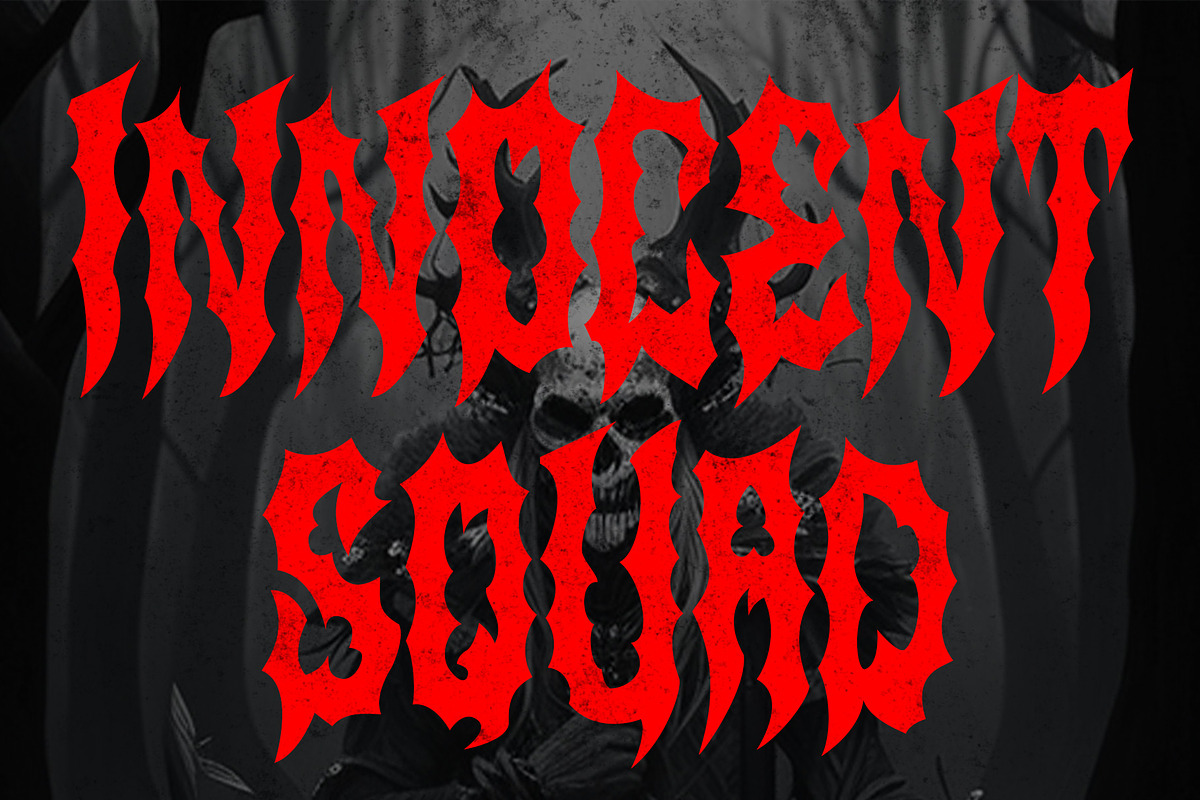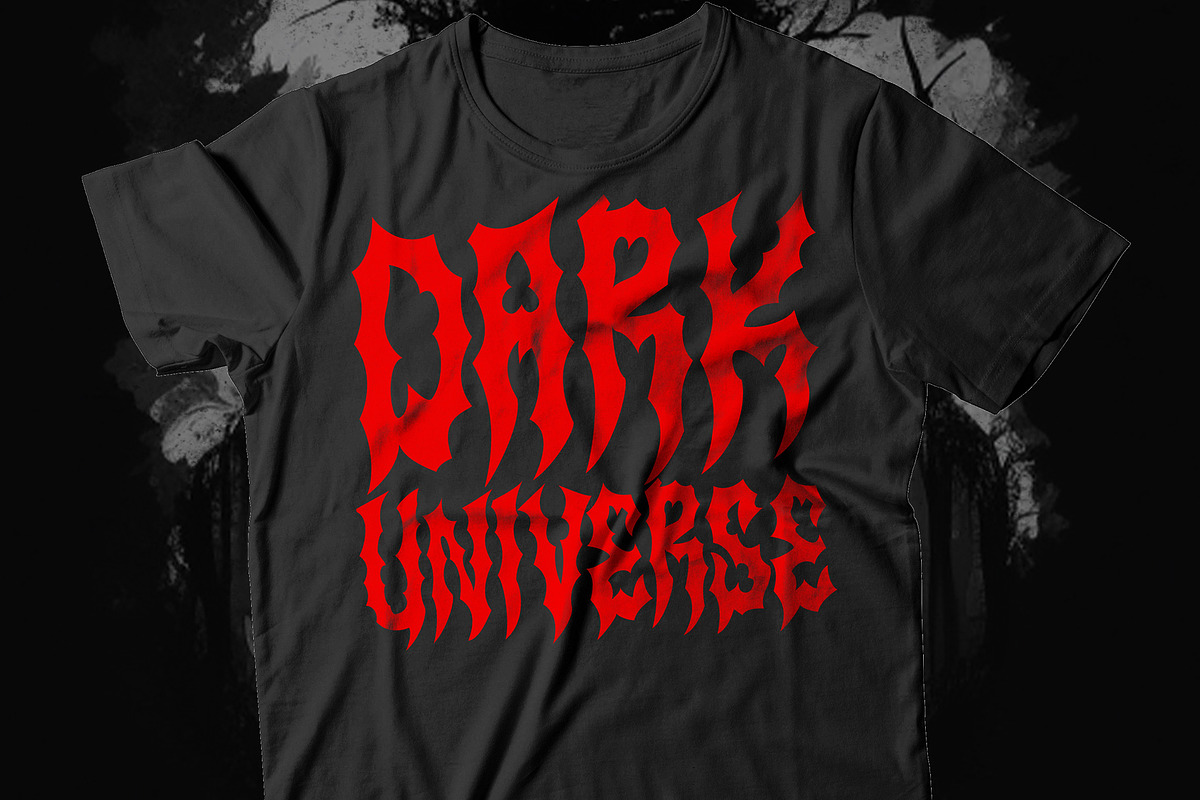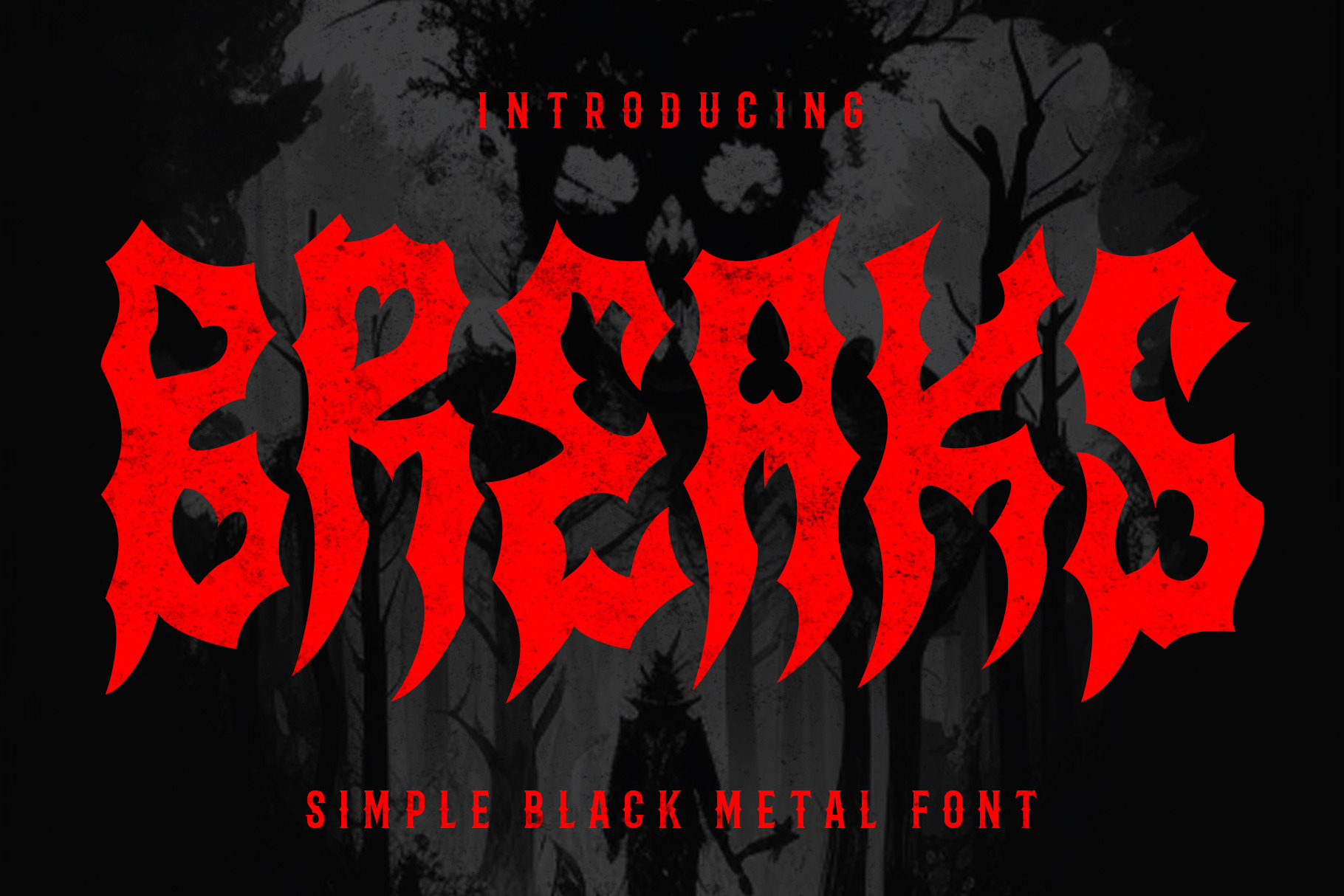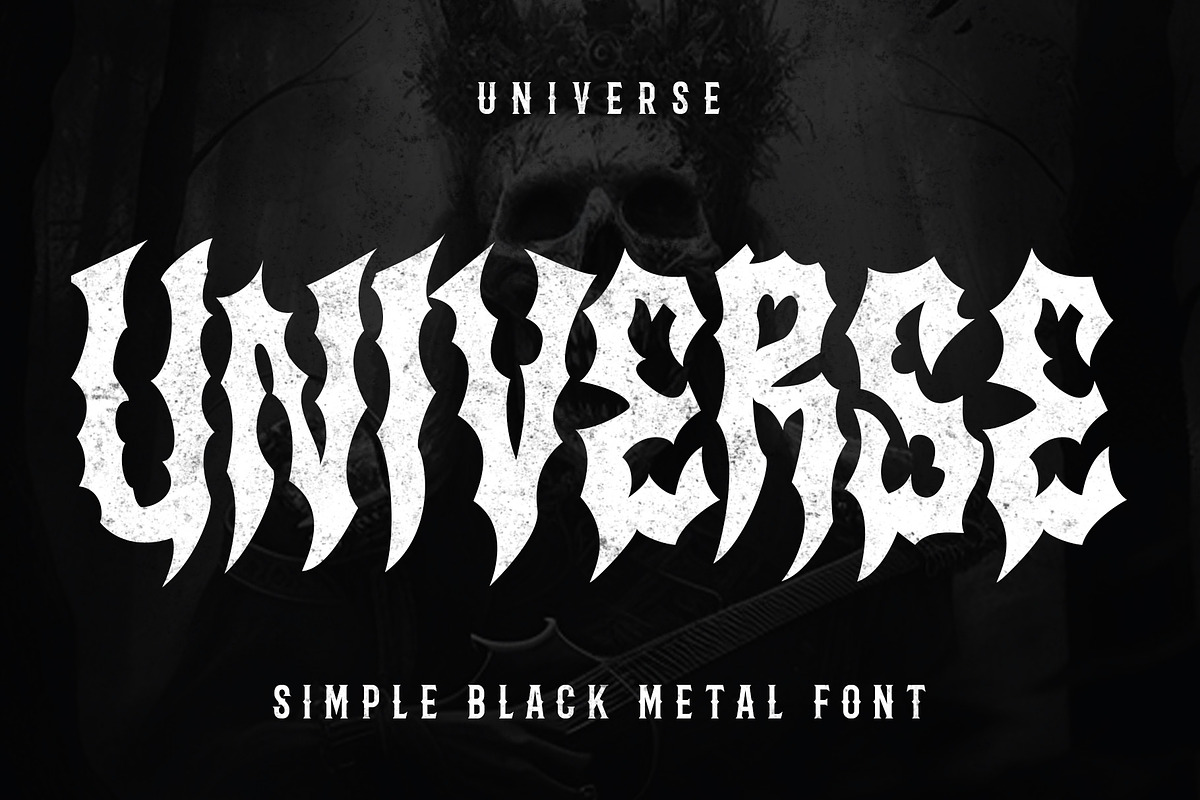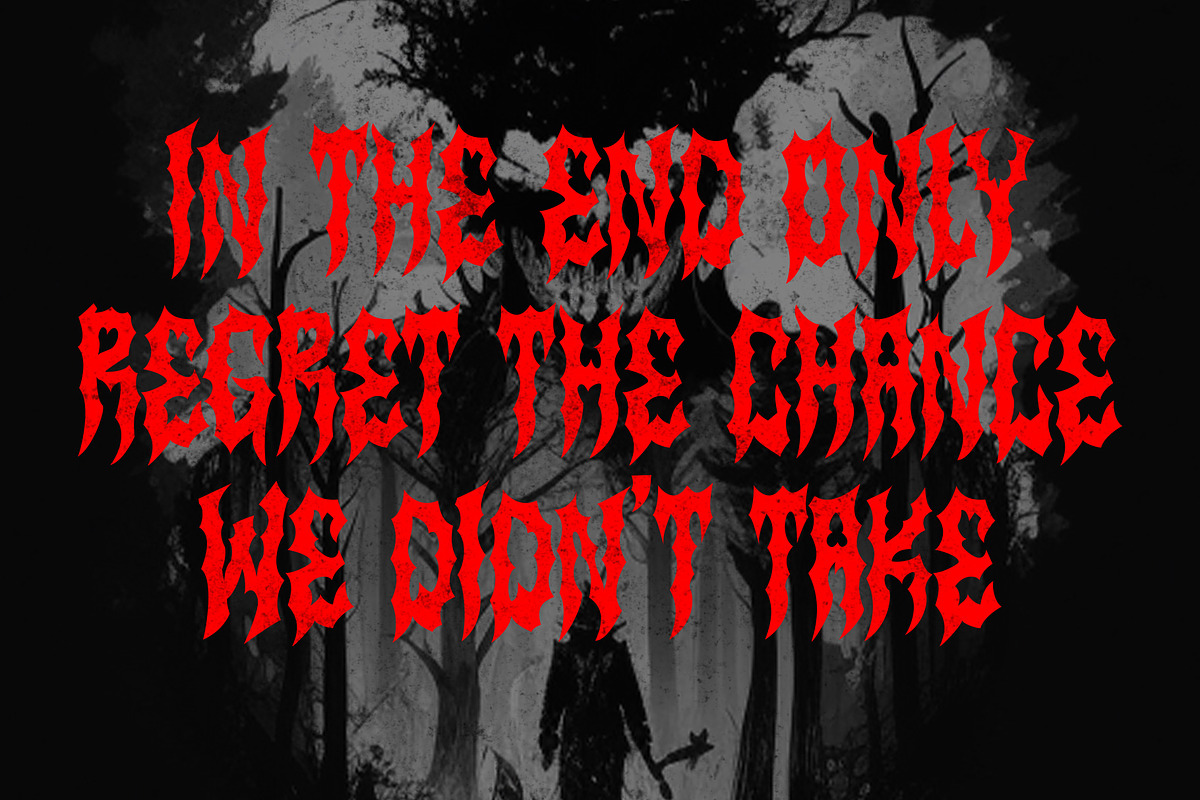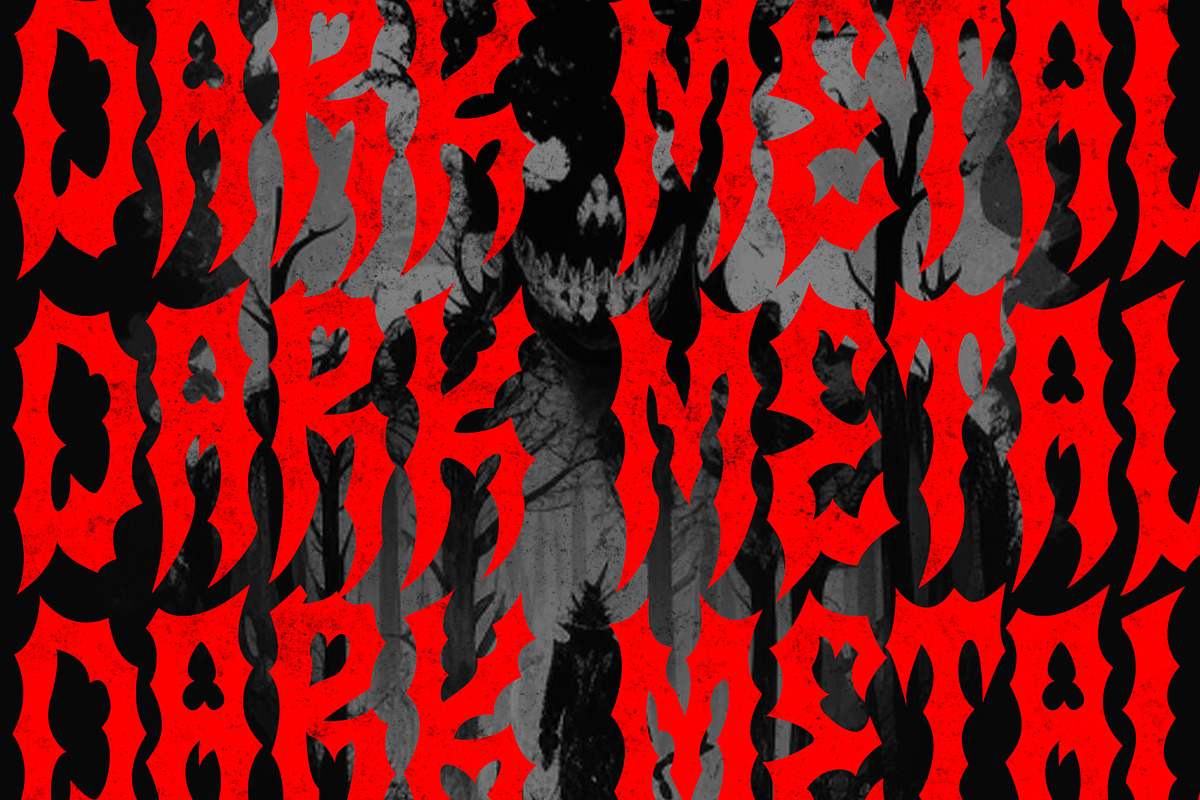
BREAKS - Horror Font
Introducing Breaks, our bold and eerie font that's perfect for creating spine-chilling designs that will give your audience goosebumps. With its sharp and jagged design, Breaks is perfect for capturing the essence of horror and suspense.
Breaks is all caps font